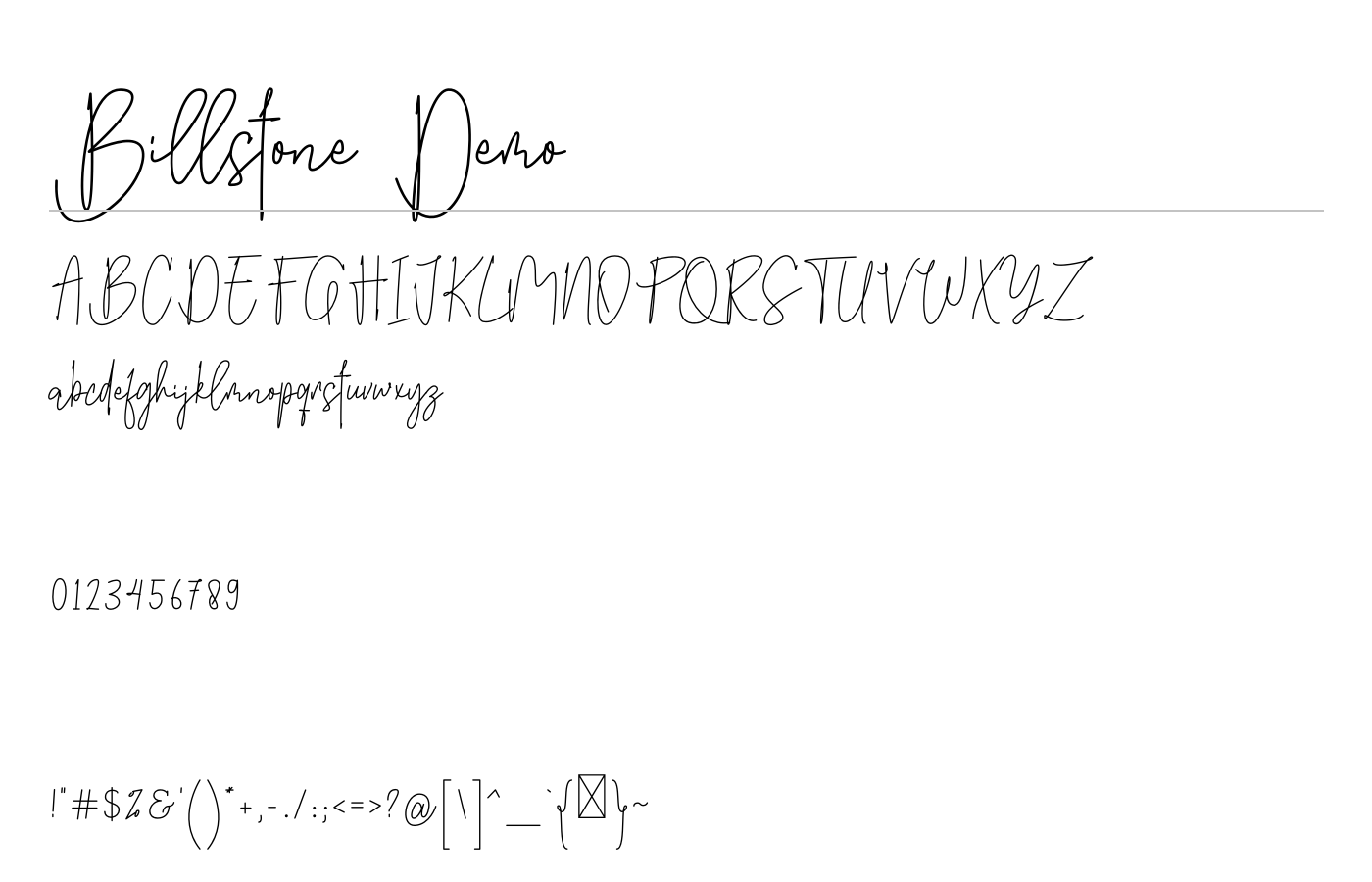
Billstone Demo is a delicate, handwritten script font with tall, slender letterforms and a playful, casual vibe. Its fine strokes and irregular lines give it a personal, artistic touch, making it ideal for creative projects, invitations, and branding that seeks a warm, approachable feel. This font works best in headlines and decorative text where a light, expressive style is desired.
Billstone Demo Font
About Billstone Demo Font
| Font family | Billstone Demo Font |
| Designer | Nugi Maulana Nurzahid |